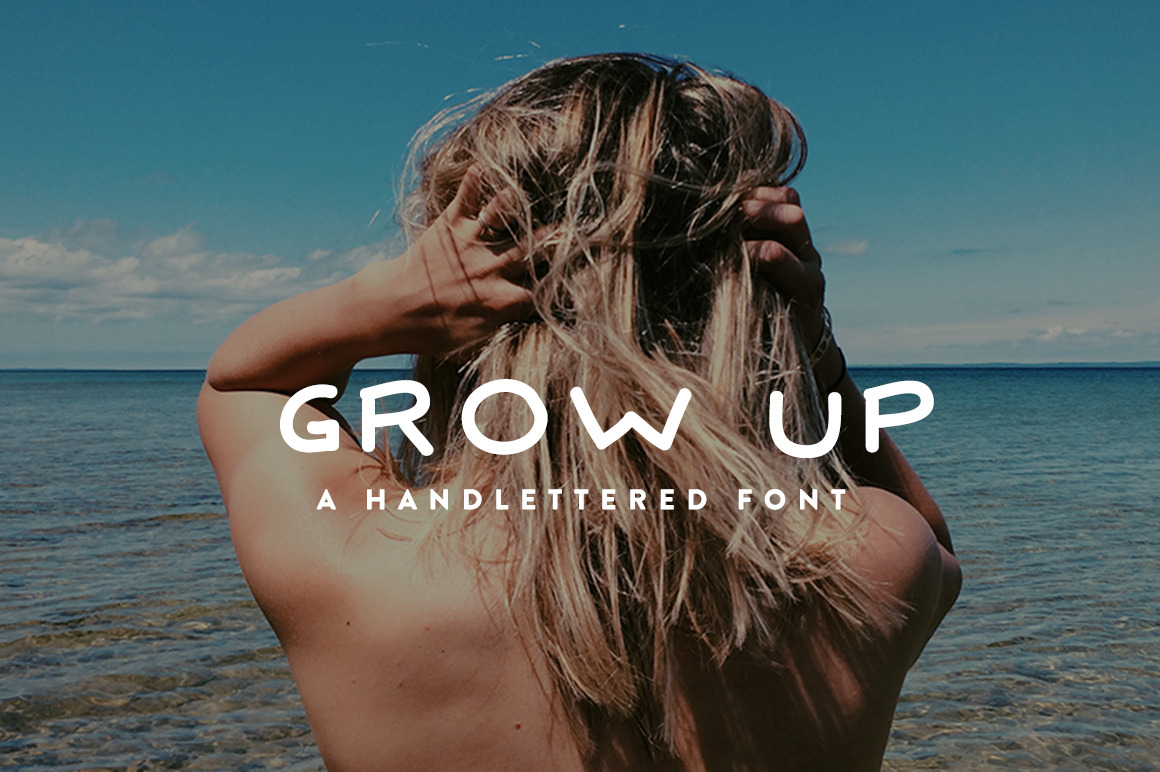
Grow Up - Hand Lettered Font
A simple low and wide sans serif font that is all hand lettered. Since it is hand lettered the freeform is purposeful and meant to feel like someone hand lettered or wrote it on the image it is on. Best used for a logo, social graphics, blog content, or poster/flyer design.